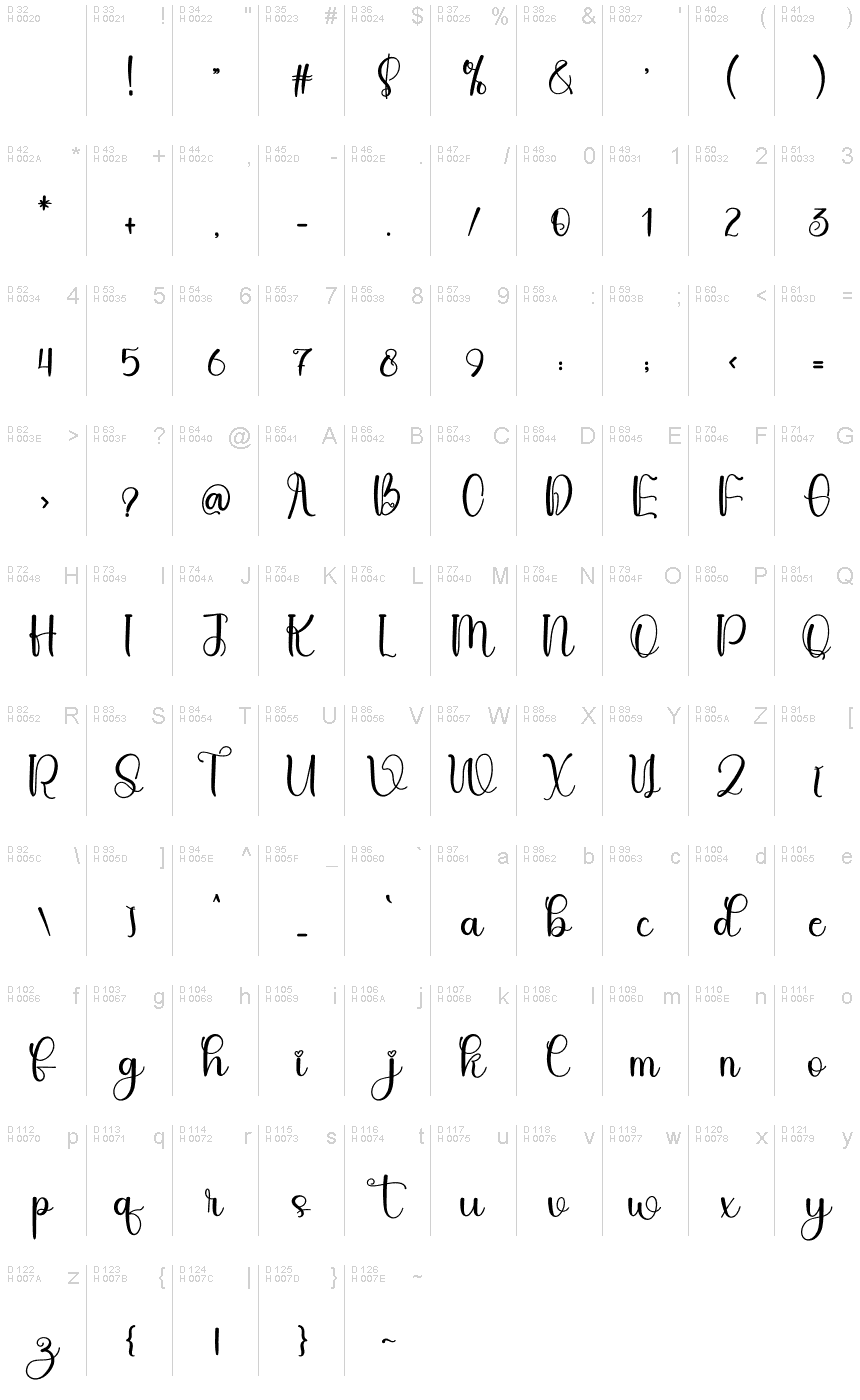
Sweet Pineapple
Sweet Pineapple, a creation of Inermedia Studio, stands out as an embodiment of charm and individuality. This semi-light handwritten font captivates with its aesthetic fluidity and personal touch that resonates through every curve and line. The casual elegance it exudes makes it a versatile choice for various design endeavors such as invitations, branding, and social media graphics.
With its delightful balance between whimsical flair and readability, Sweet Pineapple promises to infuse your creative projects with a sense of warmth and bespoke sophistication.